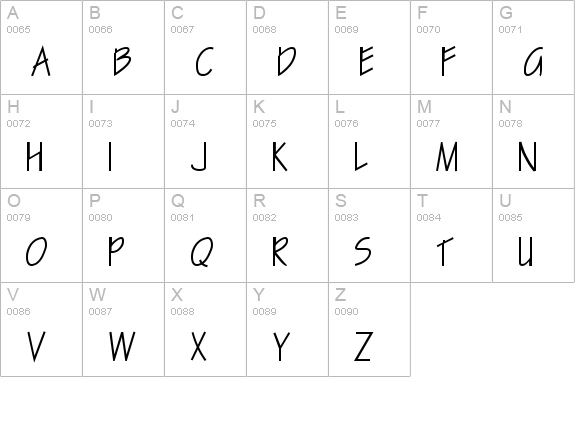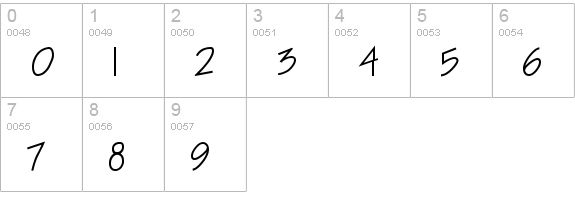
Sketch Normal is the standard, neutral variant in the Sketch typeface family \xE2\x80\x94 well suited to general body text, paragraphs, and standard typographic work.
Sketch Normal is a unique and versatile font that will add a touch of creativity and playfulness to any project. Its hand-drawn style captures the essence of spontaneity and imagination, making it perfect for designs that aim to stand out from the crowd. With its clean lines and elegant curves, Sketch Normal strikes the perfect balance between legibility and artistic expression. Whether you're designing a logo, creating a poster, or crafting a social media post, this font will effortlessly bring your ideas to life. One of the best things about Sketch Normal is that it is freely available to download at FontsMarket.com. This means that you can enjoy all the benefits of this exceptional font without any cost. It's a fantastic opportunity to enhance your design toolkit and explore the endless possibilities that Sketch Normal has to offer. The versatility of Sketch Normal is showcased in its wide range of weights and styles, allowing you to find the perfect fit for any project. Whether you prefer a bold and eye-catching look or a more subtle and delicate approach, this font has got you covered. Sketch Normal's clean and modern aesthetic makes it suitable for a variety of design applications. From branding and packaging to websites and invitations, this font will effortlessly elevate your creations and leave a lasting impression on your audience. In addition to its aesthetic appeal, Sketch Normal also boasts excellent legibility, ensuring that your message is delivered clearly and effectively. Its well-defined characters and generous spacing make reading a breeze, regardless of the size or medium of your design. So why wait? Download Sketch Normal for free at FontsMarket.com and unlock a world of creativity and inspiration. With its unique style, versatility, and exceptional legibility, this font is a must-have for any designer or creative individual looking to make a statement.